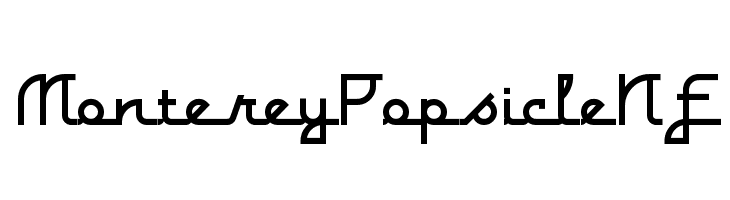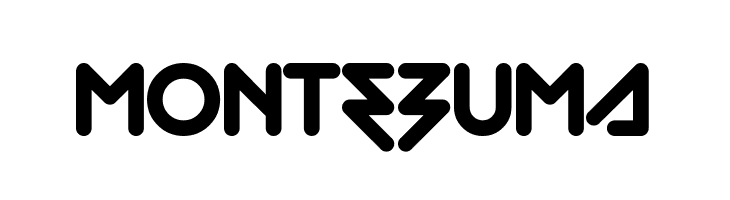
( Fonts by Kreative Korporation - www.kreativekorp.com )
A pixelated, retro-style font with a blocky, geometric design.
An elegant, flowing script font with intricate loops and flourishes.
( Fonts by Kreative Korporation - www.kreativekorp.com )
A bold, pixelated font with a retro digital aesthetic.
( Fonts by Nick Curtis - www.nicksfonts.com )
A playful blend of geometric and script styles with bold, consistent strokes.
( Fonts by Casady & Greene )
A sleek, modern font with geometric influences and sharp, precise lines.
( Fonts by Casady & Greene )
A bold, geometric font with strong lines and modern appeal.
( Fonts by Casady & Greene )
A bold, italicized font with a dynamic and forward-leaning style.
( Fonts by Casady & Greene )
A sleek, italicized font with a modern and dynamic style.
( Fonts by Casady & Greene )
A modern, dynamic font with sharp angles and smooth curves.
( Fonts by Nick Curtis - www.nicksfonts.com )
A playful font combining geometric and cursive elements with bold strokes.